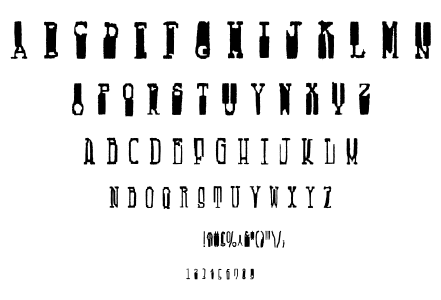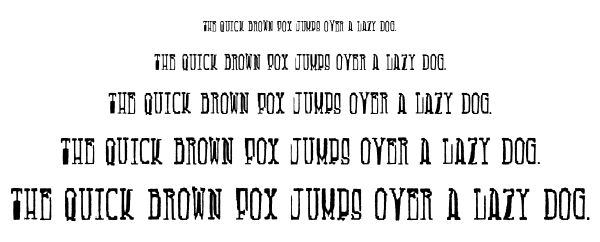
Fucsimile was based on several faxes I received many years ago that were stretched and distressed. Fucsimile includes OpenType superiors and subscripts accessible through OpenType savvy applications.